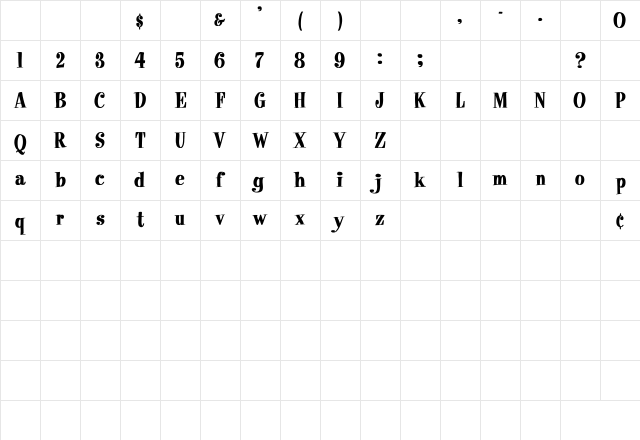
PixieFont Cn is a composed and adaptable typeface that performs quietly and consistently across a wide range of design contexts. Its bold stroke weight gives it real presence on the page.